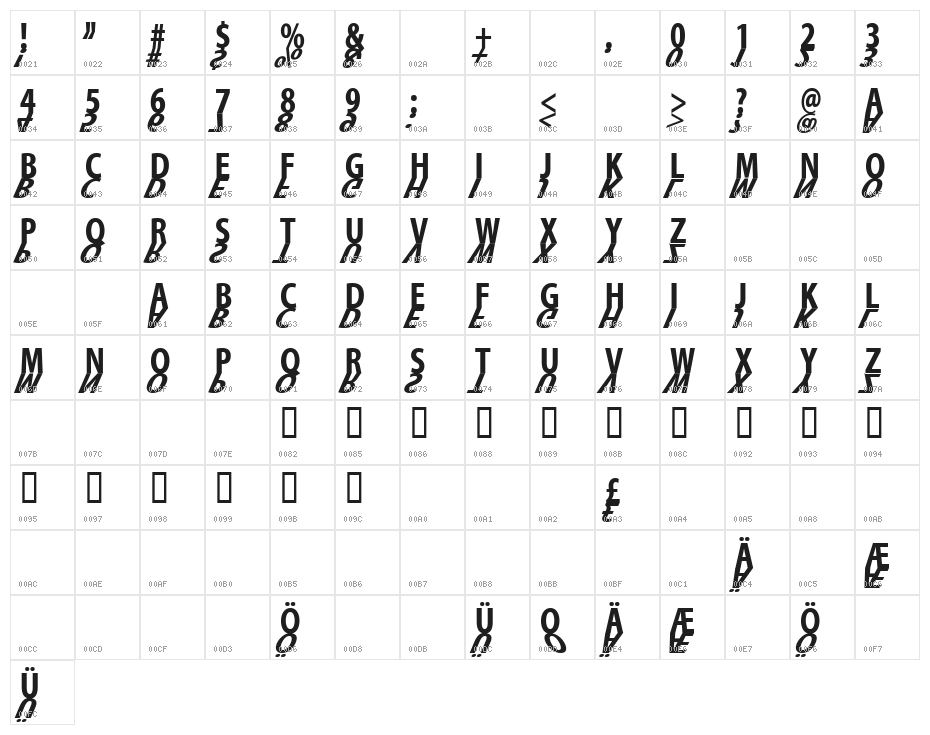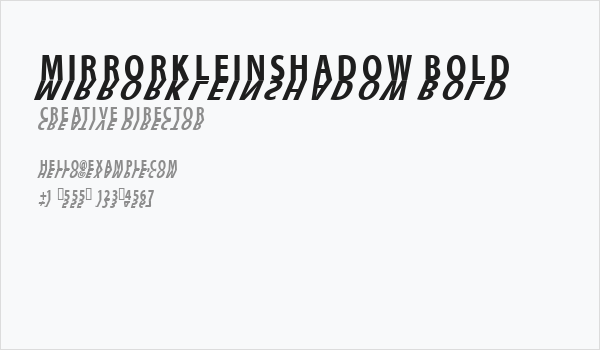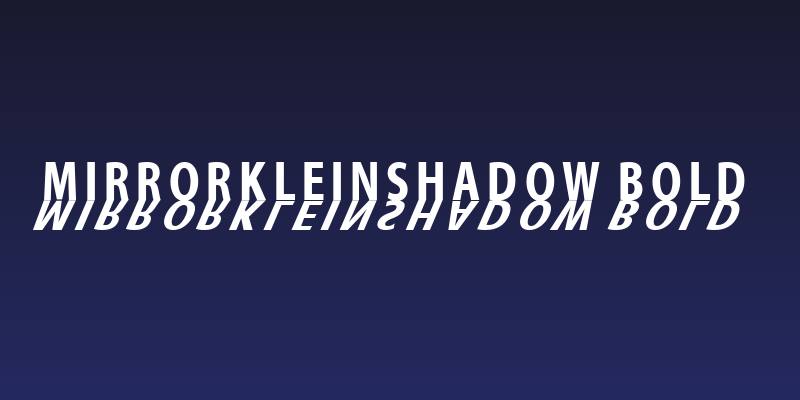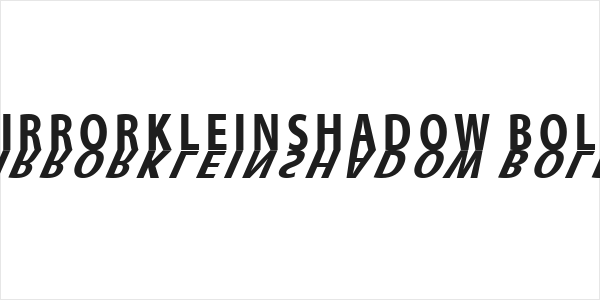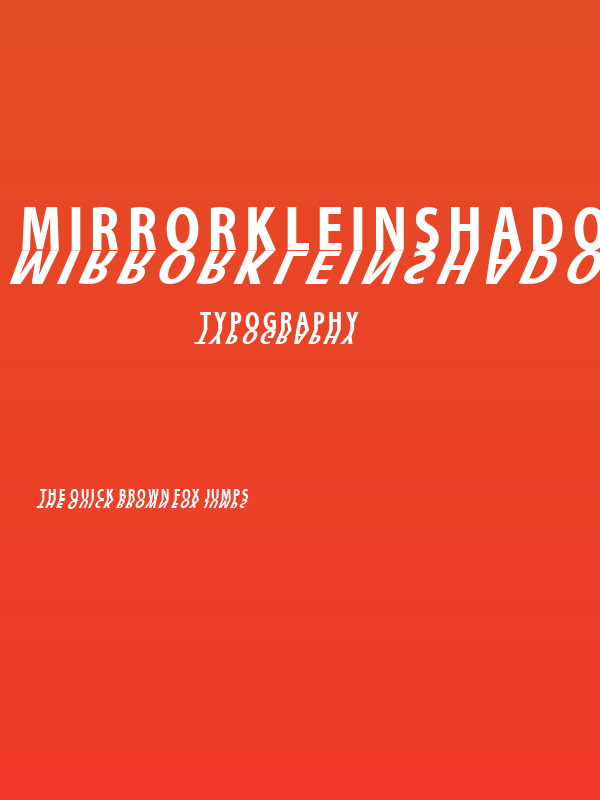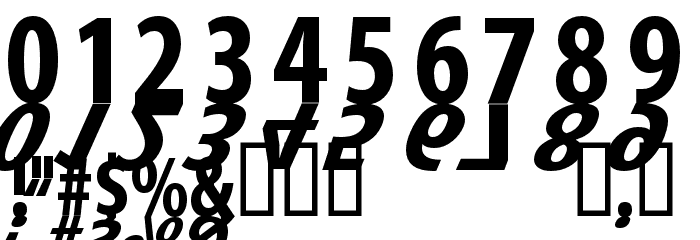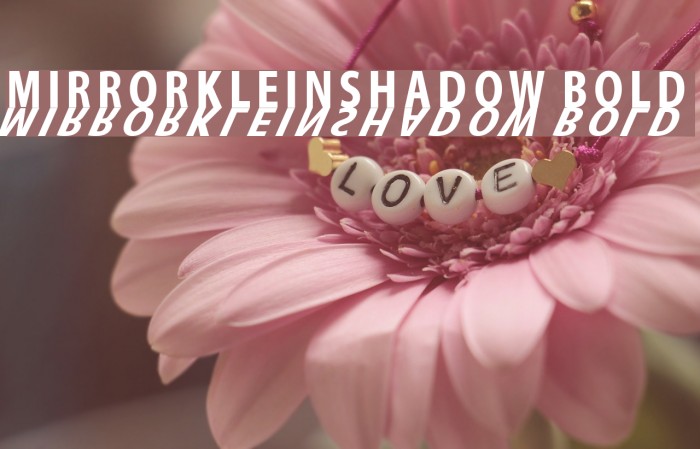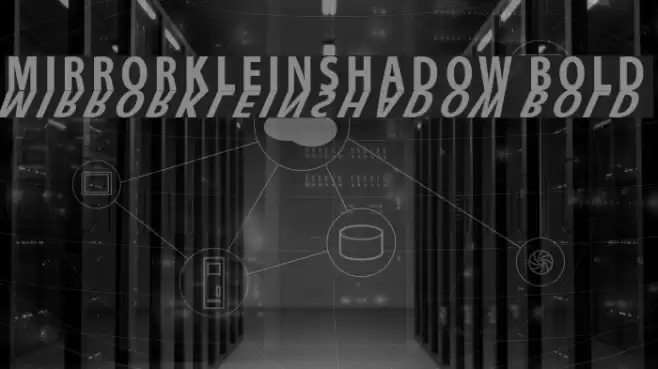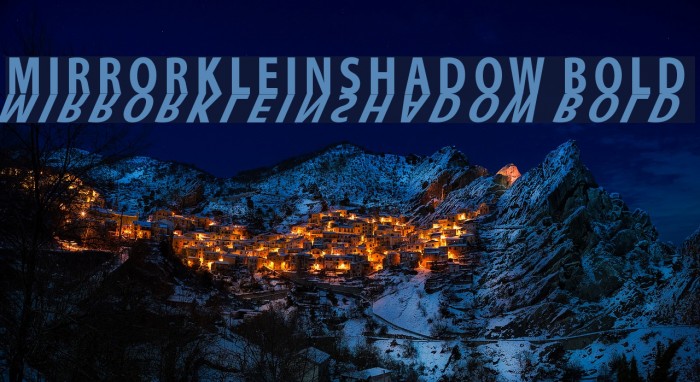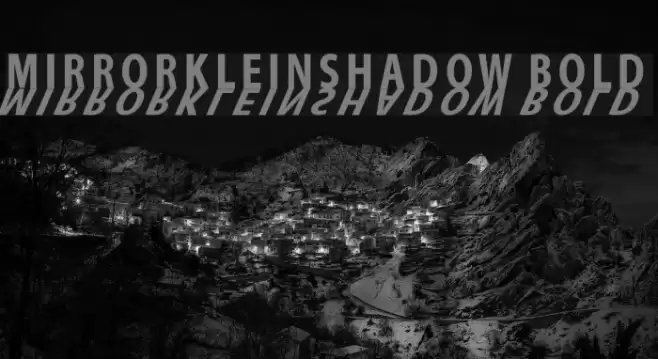
MirrorKleinShadow Bold Font
MirrorKleinShadow Bold Description
This bold and dynamic font features a striking shadow effect that creates a sense of depth and movement. The uppercase and lowercase letters are designed with a strong, geometric structure, giving them a modern and assertive appearance. The numbers and special characters maintain this bold style, ensuring consistency across all elements. The italicized slant adds a sense of speed and urgency, making it ideal for attention-grabbing headlines or impactful logos. The character spacing is tight, enhancing the compact and cohesive look of the text.
| Proposed Projects | Ideal for branding, advertising, posters, and any design requiring a bold, modern statement. |